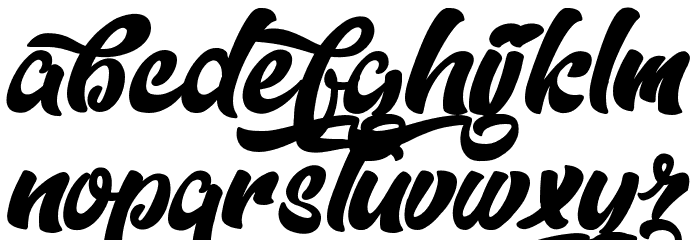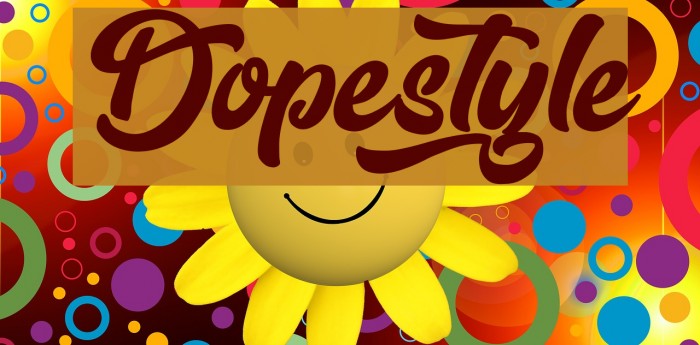
Dopestyle Font
This font features a bold, expressive script style with a strong presence. The uppercase letters are elegantly curved with flourishes that add a sense of movement and dynamism. The lowercase letters maintain a consistent flow, with some characters extending below the baseline, enhancing the font's fluidity. The numbers are bold and rounded, complementing the overall style. Special characters are designed with the same boldness and flair, making them stand out. This font is ideal for projects that require a dramatic and artistic touch.
A bold, expressive script font with dynamic flourishes.
- Proposed Projects: Ideal for branding, logos, posters, and invitations where a dramatic and artistic style is desired.